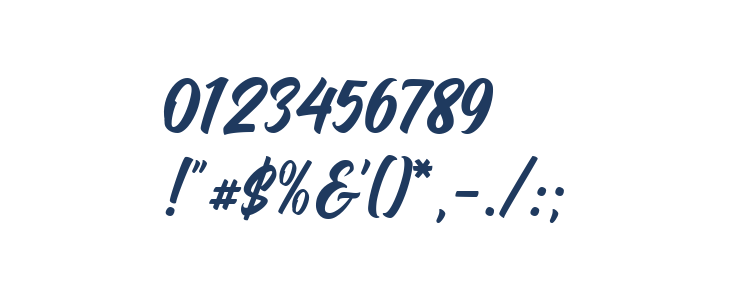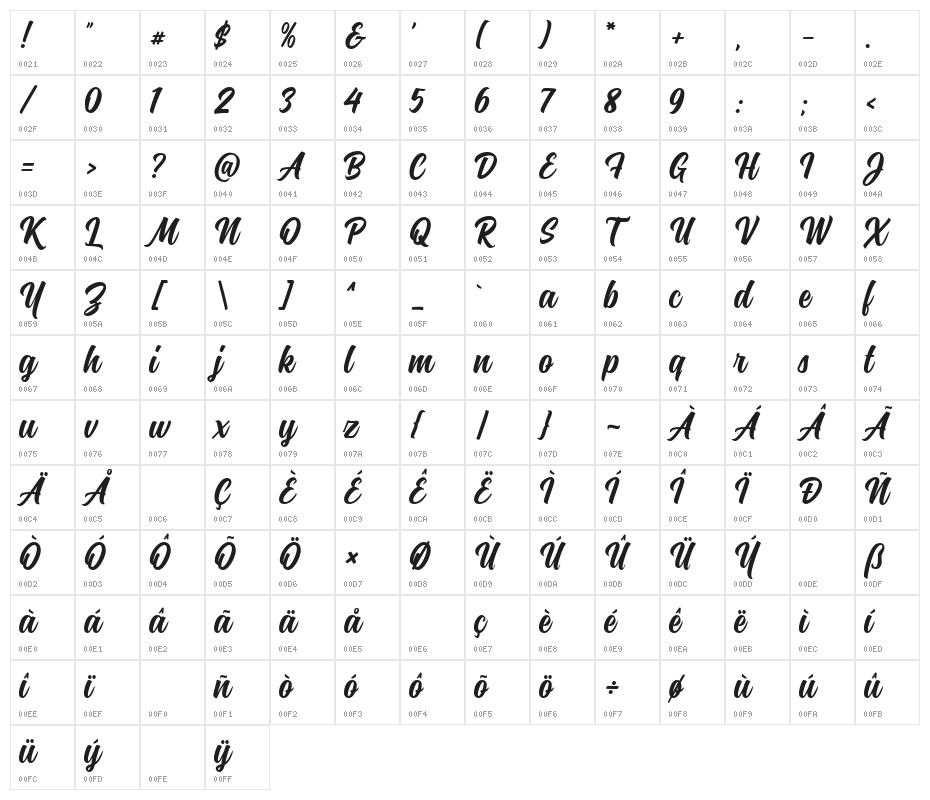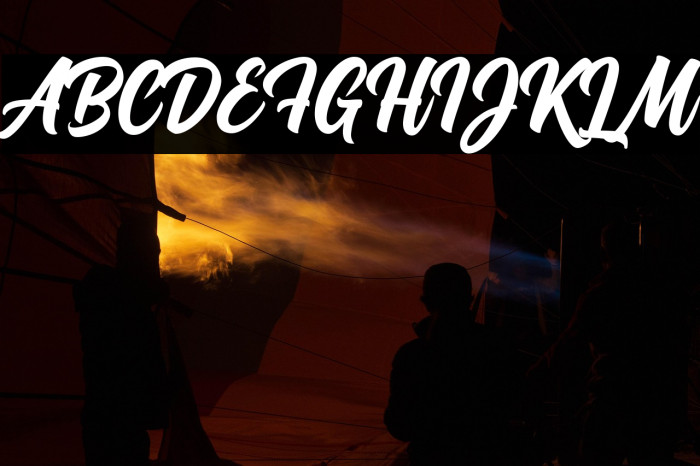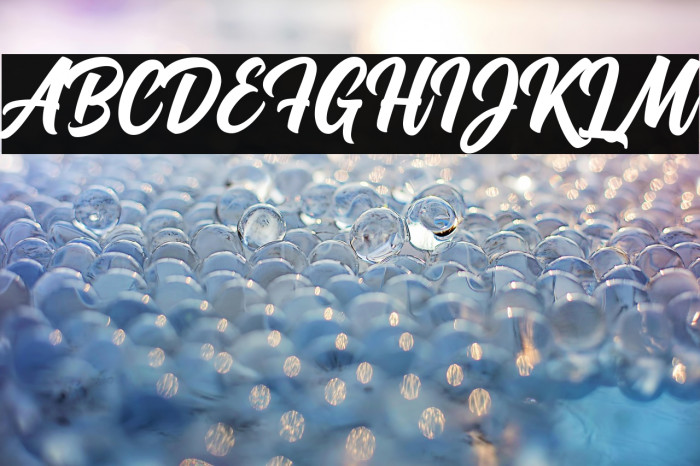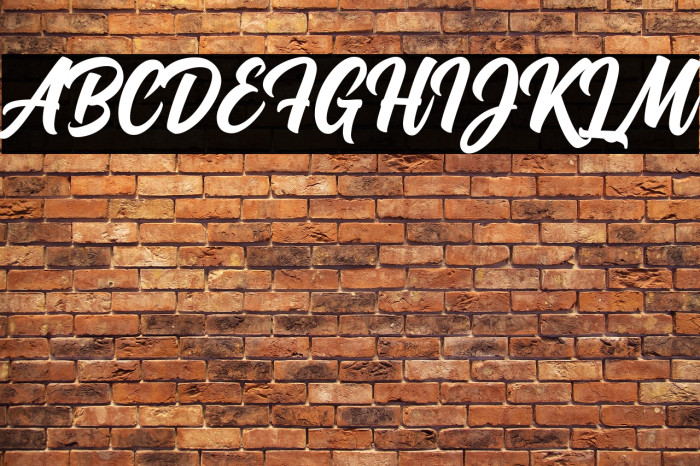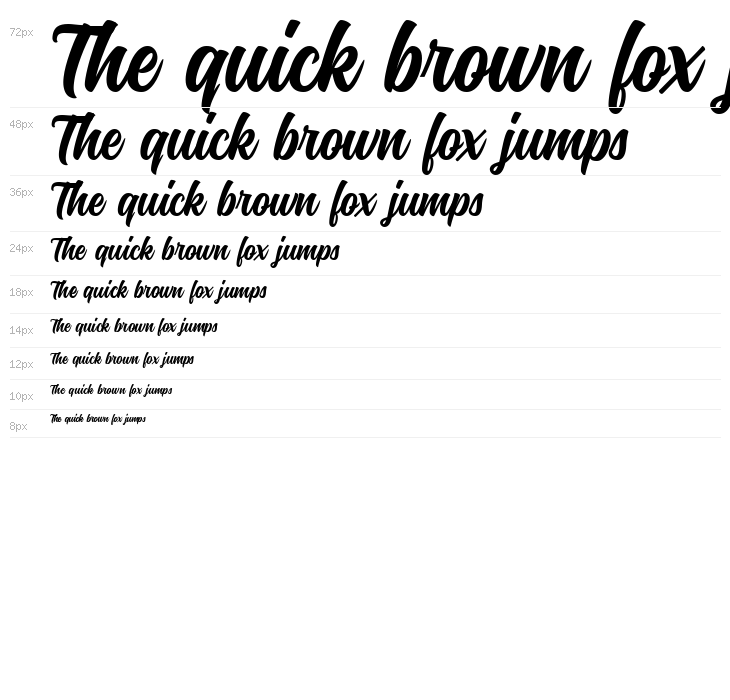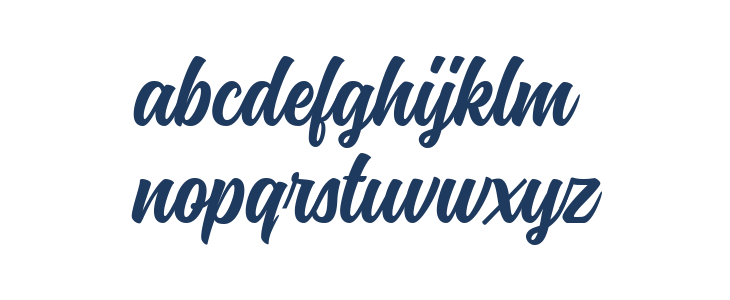
Montana Font
Montana Description
This font features a bold and dynamic script style, characterized by its flowing, cursive letterforms that convey a sense of elegance and movement. The uppercase letters are slightly more angular, providing a striking contrast to the softer, rounded lowercase characters. The numbers and special characters maintain the same fluidity, ensuring consistency across all elements. The overall appearance is both stylish and legible, making it suitable for a variety of design applications. The font's bold weight and high contrast between thick and thin strokes enhance its readability and visual impact.